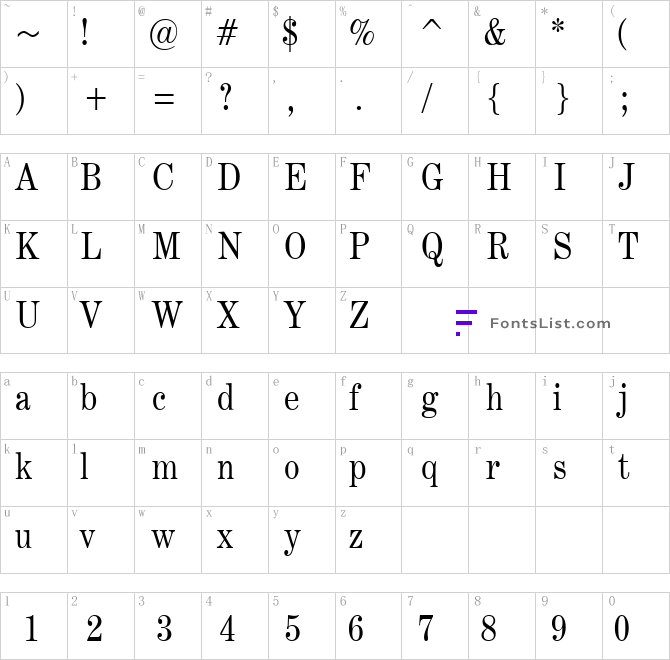
Annual-Condensed-Normal.ttf is a very beautiful artistic font, Annual-Condensed-Normal.ttf is widely used in the design and printing of various books and pictures,Annual-Condensed-Normal.ttf has a strong visual impact,Annual-Condensed-Normal.ttf is a commonly used font in newspapers, magazines and books, and is used in posters, e-commerce Poster design, store design, logo design, font design and other fields.Annual-Condensed-Normal.